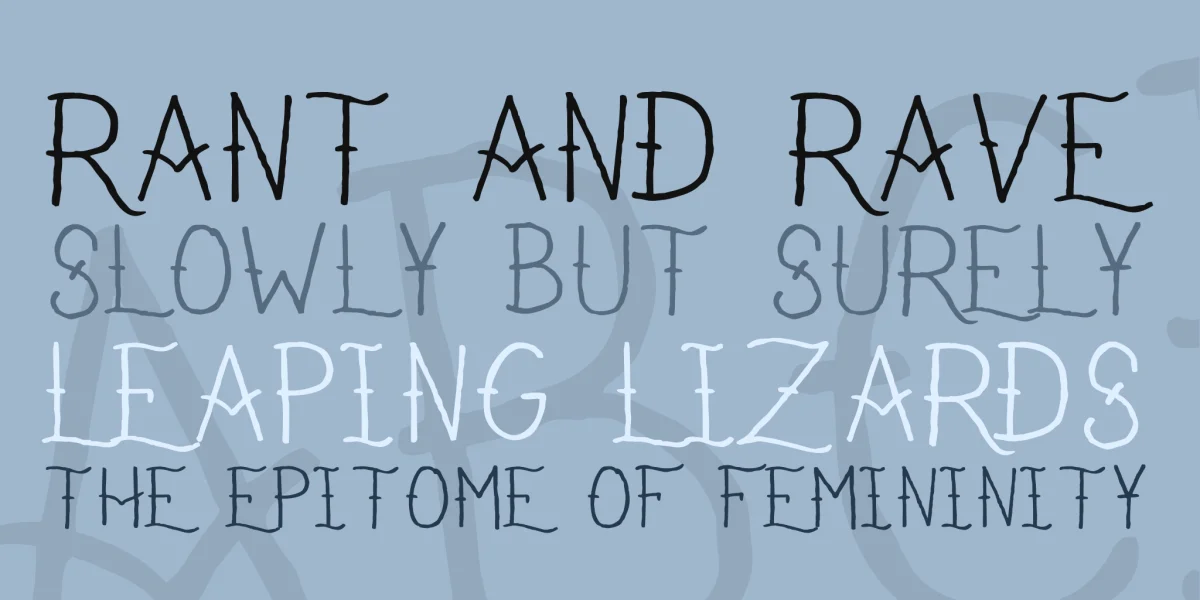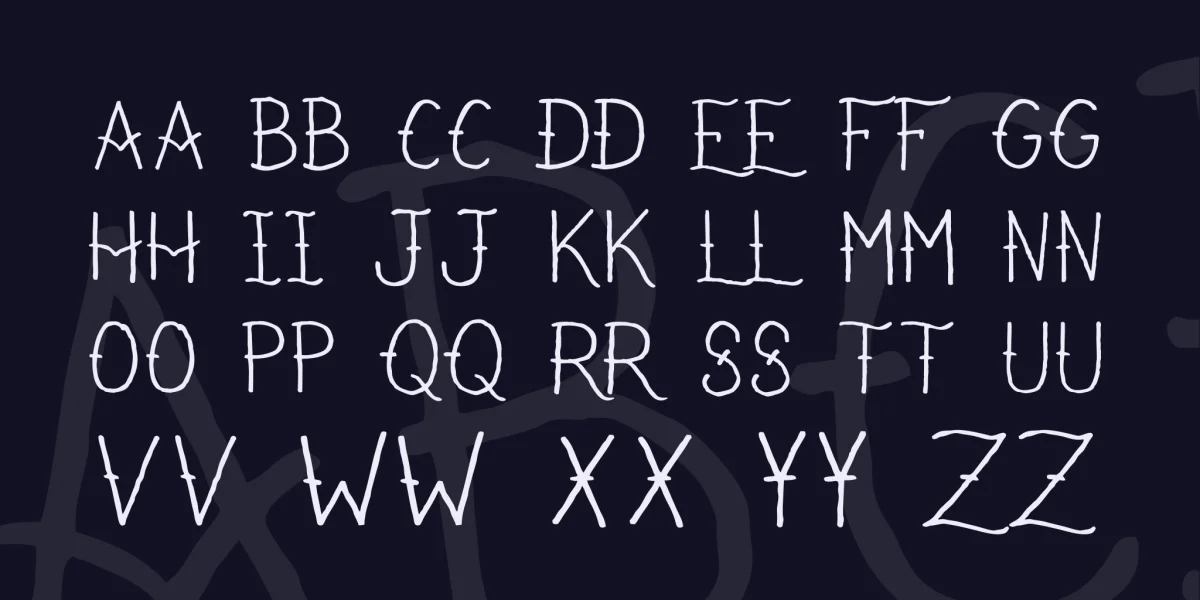
Here's a simple elegant hand-drawn tattoo script designed to blend well with your traditional flash projects. Hit us up about custom hand drawn or commercial licenses: